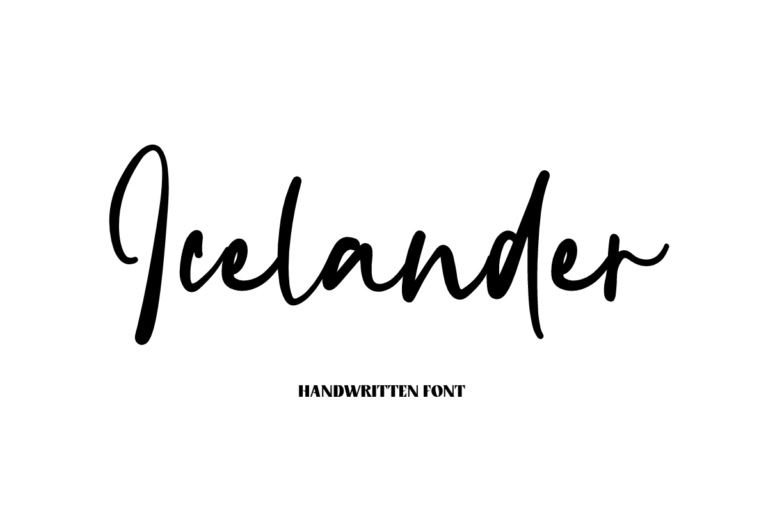
- Icelander – Handwritten Font
Icelander
Icelander – is a modern handwritten font. This font is made in a modern style, very casual, and suitable for your various design needs. It’s perfect for logo, branding, title, social media posts, advertisements, product packaging, product designs, label, photography, watermark, special event, magazine, web design, etc.
- Icelander ( Uppercase, Lowercase )
- multilingual support
- Ligatures